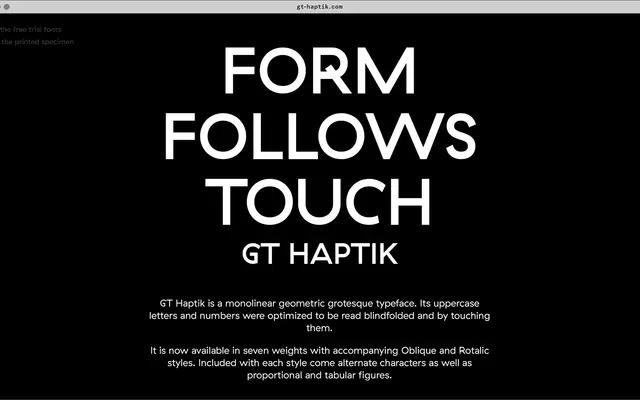
GT Haptik
Grilli Type · Reto Moser, Tobias Rechsteiner · 2010
GT Haptik specimen from Grilli Type
Reto Moser and Tobias Rechsteiner's monolinear geometric grotesque, optimised to be read blindfolded and by touch.
A monolinear geometric grotesque by Reto Moser and Tobias Rechsteiner, released in 2010 and updated in 2014. Grilli explain that the uppercase letters and numbers were optimised to be read blindfolded and by touching them. The family now runs to 21 styles across seven weights, each with Oblique and Rotalic cuts plus alternate characters and proportional and tabular figures.
Grilli describe it as a monolinear geometric grotesque whose uppercase letters and numbers were optimised to be read blindfolded and by touch. Available in seven weights with Oblique and Rotalic companions.